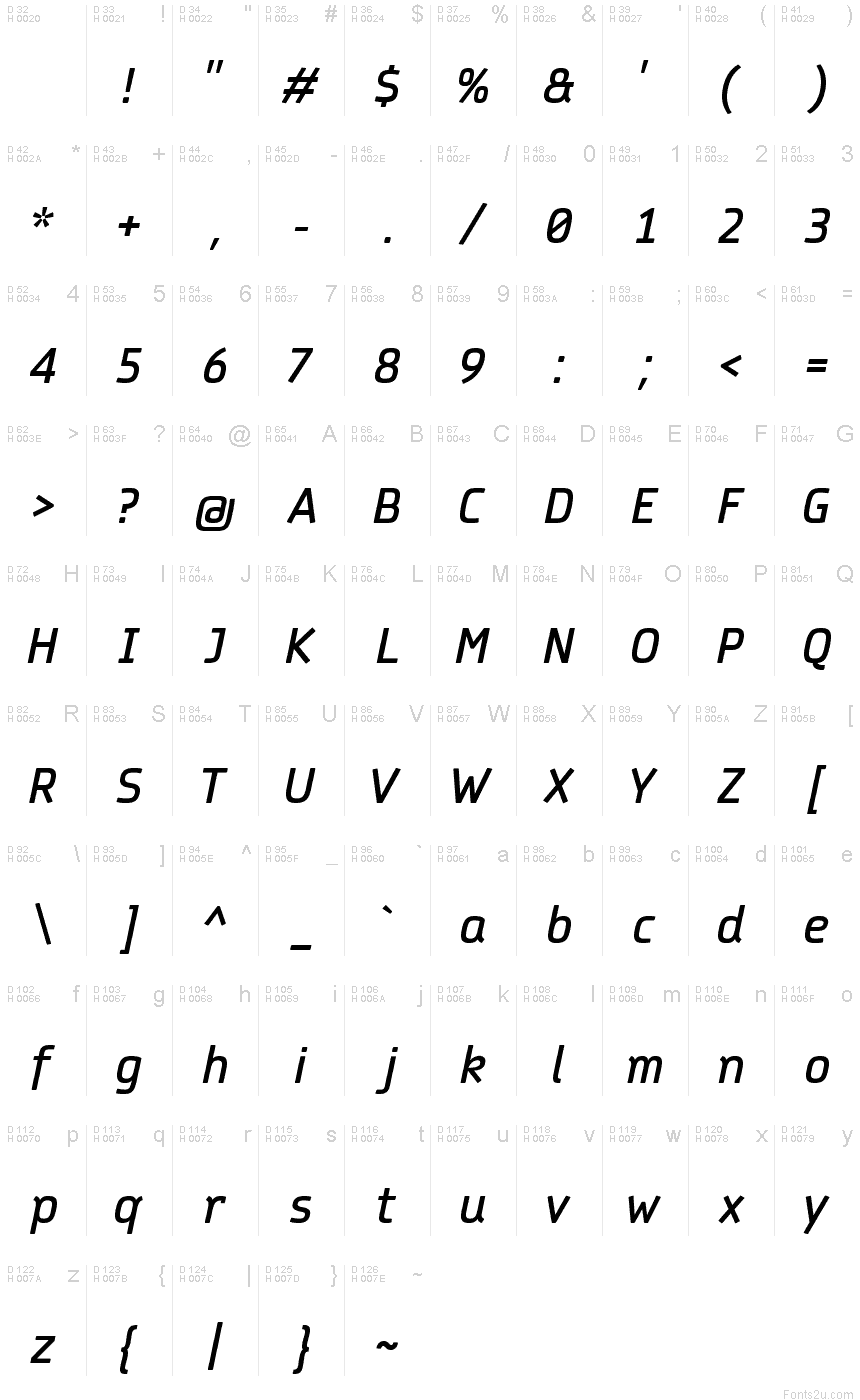
Patron Italic by Matej Hlavacek is a free italic sans serif with a brisk silhouette. Broad curves and cut ends give the letters a confident forward pull. Stroke changes are smooth and controlled.
Its sweeping slant echoes motion in sports photography, suiting event posters and athletic branding. The same sleek profile suits fashion packaging and music covers. With cropped figures or directional graphics, the lettering can become part of the action rather than a separate caption.